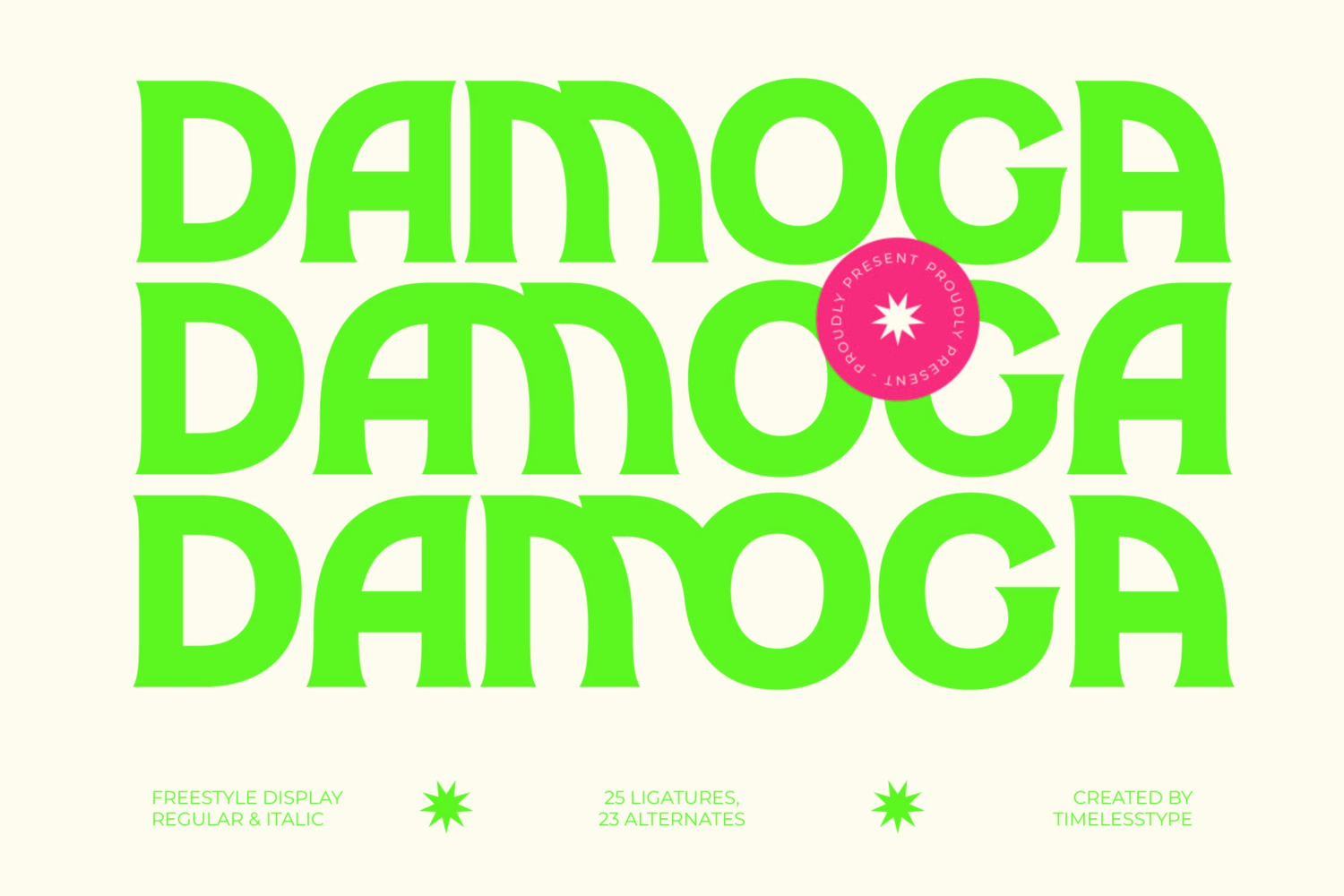
Damoga - Freestyle Display Font
Elevate your design projects with the captivating retro flair of Font Damoga - Freestyle Display Font Groovy. This exceptional display typeface expertly blends 1970s nostalgia with cutting-edge modern typography, creating a powerful visual identity that demands attention. Its heavy, striking letterforms feature unique, softened terminals and a playful rhythm, making it an instant centerpiece for any creative layout requiring maximum impact and a distinctly bold personality.
Unlock limitless creative potential through its robust OpenType features. With 25 custom ligatures and 23 stylistic alternates, Font Damoga - Freestyle Display Font Groovy allows designers to customize their typography, injecting unique character and flow into headings and logotypes. This versatility makes it perfect for luxury packaging, music album art, high-impact editorial spreads, and contemporary brand identity development where a distinct, memorable look is essential for standing out in crowded markets.
Ensure global recognition and seamless integration into international campaigns. With its extensive multilingual support, Font Damoga - Freestyle Display Font Groovy adapts seamlessly across global markets, making it incredibly versatile for international projects. This comprehensive language coverage guarantees that your message maintains its intended aesthetic and professional polish, whether designing for North American, European, or emerging Asian creative industries.
Define your brand’s personality with a font engineered for success. Font Damoga - Freestyle Display Font Groovy is more than just a typeface; it’s a statement of bold confidence and sophisticated fun. Optimized specifically for large-scale display use, it delivers exceptional legibility while maintaining its characteristic groovy charm. Invest in this powerful typographic tool to instantly differentiate your client work and secure a truly unique, high-quality display presence.